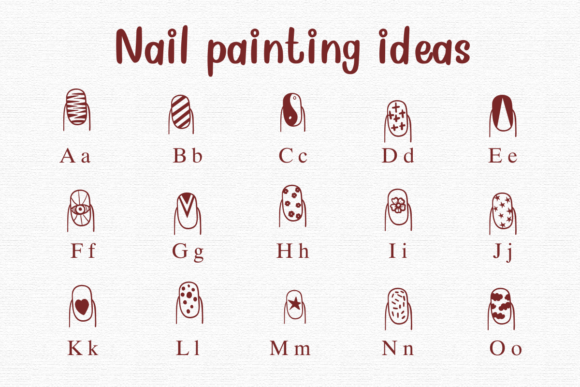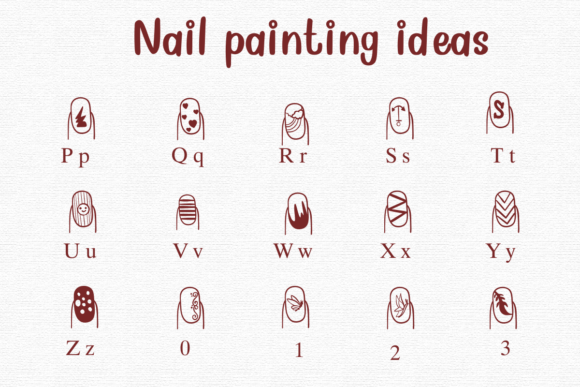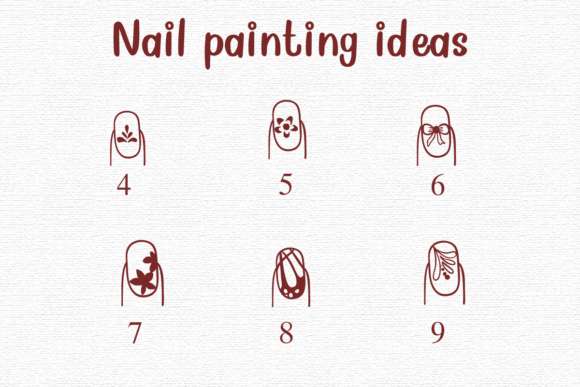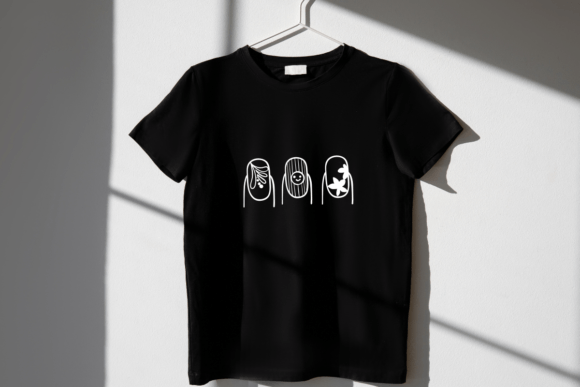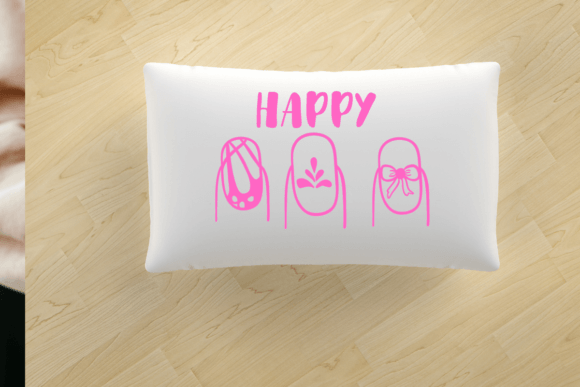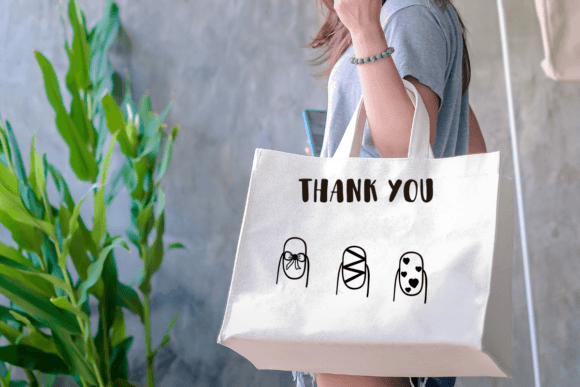
Introduction to Nail Painting Ideas Font
As you sit at your desk, surrounded by paint swatches and sketchbooks, you’re suddenly hit with a burst of creativity – it’s time to give your nails a makeover. You scroll through Pinterest, searching for the perfect inspiration to transform your look. But amidst the endless nail art designs, it’s hard to find something that truly speaks to you. That’s where the Nail Painting Ideas Font comes in – a fun and creative dingbat font that brings your nail art dreams to life.
This innovative design resource is more than just a pretty face; it’s a treasure trove of ideas waiting to be unleashed. With a simple free download, you can access a vast library of nail art designs, each one a unique and stylish creation. Whether you’re a seasoned nail artist or a DIY enthusiast, this font is the perfect companion for your next creative project.
Imagine being able to browse through hundreds of nail designs, each one a high-quality image with a transparent background, effortlessly searchable and easily accessible. The Nail Painting Ideas Font makes this a reality, giving you the freedom to explore new ideas and push the boundaries of your creativity. So why settle for boring nails when you can have a stunning work of art?
Nail Painting Ideas Font
- High-quality font design with a unique, creative touch, perfect for nail art enthusiasts and designers working on creative projects.
- Features a transparent background, making it ideal for use on various backgrounds and designs, from nail art to graphic design projects.
- Includes a range of characters, including letters, numbers, and symbols, allowing users to express their creativity and ideas.
- Designed specifically for use in creative projects, such as nail art, graphic design, and digital art, making it an essential design resource for artists and designers.
Honest Review: Nail Painting Ideas Font
I recently came across the Nail Painting Ideas Font, a design resource that caught my attention with its unique and creative project potential. Upon closer inspection, I found the font to be a free download, which is always a plus. The transparent background makes it easy to incorporate into various designs.
What works well about this font is its high quality and versatility. The various styles and textures available make it perfect for a range of creative projects. The font is also highly customizable, allowing users to adjust the size and color to suit their needs.
The font’s design is modern and trendy, making it perfect for nail art and beauty-related projects. I was also impressed with the variety of nail painting ideas that can be created using this font.
- High quality and versatile design
- Transparent background for easy incorporation
- Customizable size and color options
- Limited number of styles and textures available
- Not suitable for complex or large-scale designs
Overall, I’m impressed with the Nail Painting Ideas Font. While it may have some limitations, its high quality and versatility make it a great addition to any designer’s toolkit. I’d definitely recommend it for creative projects related to nail art and beauty.
Nail Painting Ideas Font
The Nail Painting Ideas Font is a unique design resource for creative projects. It’s a free download that can be used in various applications to add a touch of elegance and sophistication.
To get the most out of the Nail Painting Ideas Font, use it in combination with other design elements, such as images, graphics, and colors. Experiment with different font sizes, styles, and colors to create unique and eye-catching designs.
The Nail Painting Ideas Font is perfect for nail art designs, beauty blogs, and fashion websites. It’s also great for creating presentations, reports, and other creative projects that require a touch of elegance and sophistication.